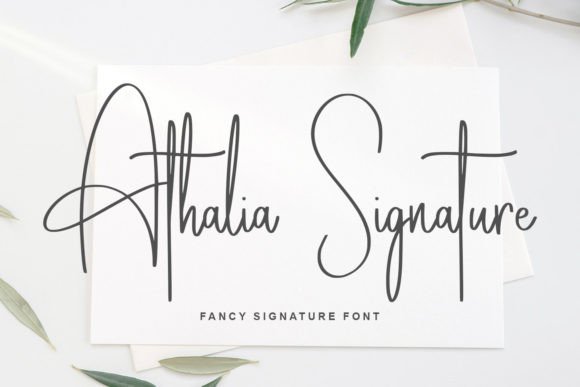
In a world where words dance across the digital canvas, embracing their power to captivate and inspire is a true art. Let Athalia Signature Font, a symphony of flowing strokes, guide you into a realm of visual elegance. Born from the creative vision of Abodaniel, Athalia is not just a font; it's an experience, a journey through the enchanting world of handwritten artistry.
Imagine your words, adorned with the grace of Athalia's sweeping curves, unveiling a tale of timeless beauty. Its delicate ligatures intertwine like whispers of the heart, evoking a sense of intimacy and charm. Each character dances across the screen, a testament to the artistry of the human hand.
With Athalia, your designs will effortlessly transcend the ordinary, leaving an enduring impression on those who behold them. Whether you're crafting logos that exude sophistication, designing wedding invitations that radiate romance, or creating social media posts that captivate, Athalia is your muse, your faithful companion in the realm of digital expression.
Rustic weddings, with their aura of timeless elegance, find their perfect match in Athalia's warm embrace. Its natural, handwritten style harmonizes seamlessly with the organic beauty of the natural world, adding a touch of warmth and authenticity to your special day.
Athalia's versatility extends beyond rustic charm, embracing a myriad of creative endeavors. Whether you're designing t-shirts that speak to the soul, creating tote bags that carry a message of empowerment, or crafting cards that convey heartfelt emotions, Athalia adapts effortlessly, becoming an integral part of your artistic vision.
But Athalia's allure is not limited to the digital realm; it seamlessly transcends into the physical world. Its timeless beauty finds expression on banners that flutter in the breeze, enchanting those who pass by. Its presence graces social media platforms, captivating audiences with its effortless elegance.
With Athalia as your font of choice, you unlock a world of possibilities, where creativity knows no bounds. Embrace its lyrical flow, its captivating charm, and its ability to transform the ordinary into the extraordinary. Let Athalia be your muse, your artistic partner, as you embark on a journey of visual storytelling, leaving an enduring legacy of beauty and inspiration.